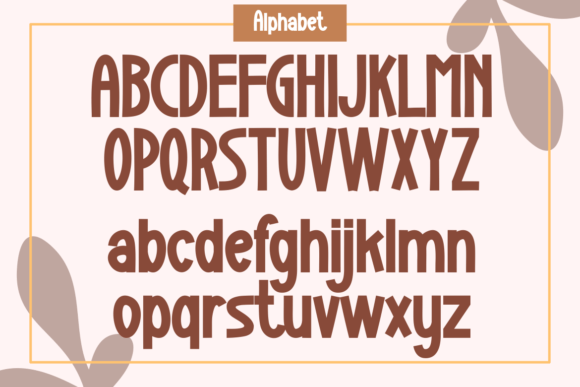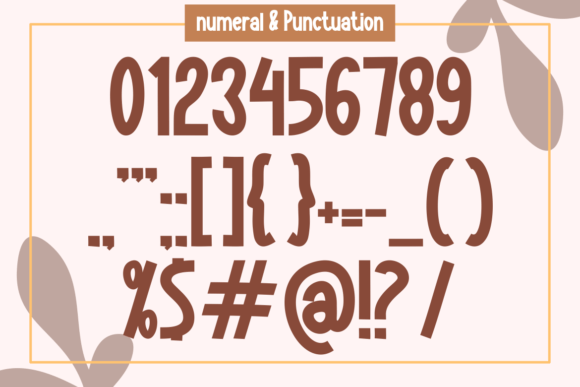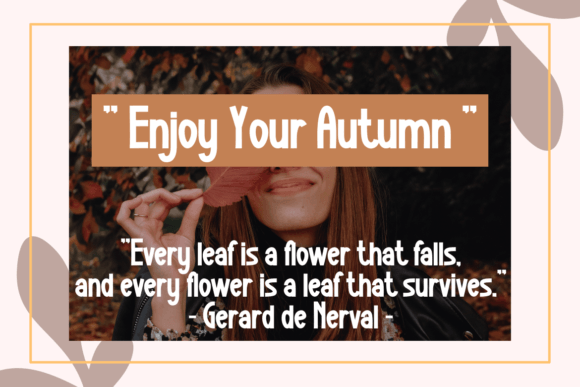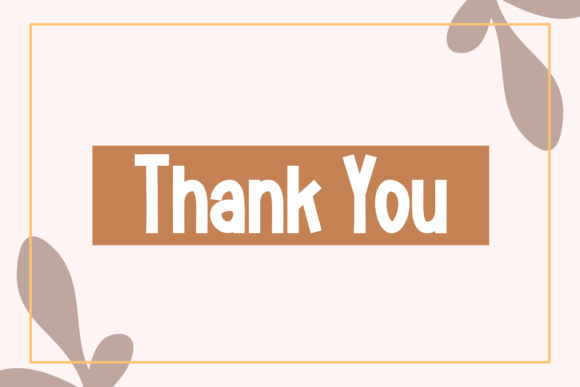
Introduction to Sakurayamauchi Font Font
Fonts play a crucial role in design, and the Sakurayamauchi Font font is a typeface that brings both character and versatility to any project. Whether you’re working on a branding project, a website, or a print design, the Sakurayamauchi Font font offers a unique style that can elevate your work.
| 📌 Font Name | Sakurayamauchi Font |
| 👤 Author | maikofarazhatta |
This font features a style that creates a warm sense of nostalgia and recalls the natural wonder as leaves change colors.
Delicate lines and gentle curves add dimension to the letter characters, creating an impression of softness and tranquility This font is highly suitable for projects that aim to depict the beauty and charm of the autumn season.
Key Features of Sakurayamauchi Font Font
Why Choose Sakurayamauchi Font Font?
The Sakurayamauchi Font font is more than just a typeface – it’s a design tool that helps you communicate your message with style and clarity. Its unique character set and versatile design make it suitable for a wide range of applications, from elegant invitations to bold headlines.
With its carefully crafted letterforms and balanced proportions, the Sakurayamauchi Font font ensures readability and visual appeal across all mediums.
What makes Sakurayamauchi Font font special?
The Sakurayamauchi Font font stands out with its unique design, exceptional readability, and versatility across various design applications.